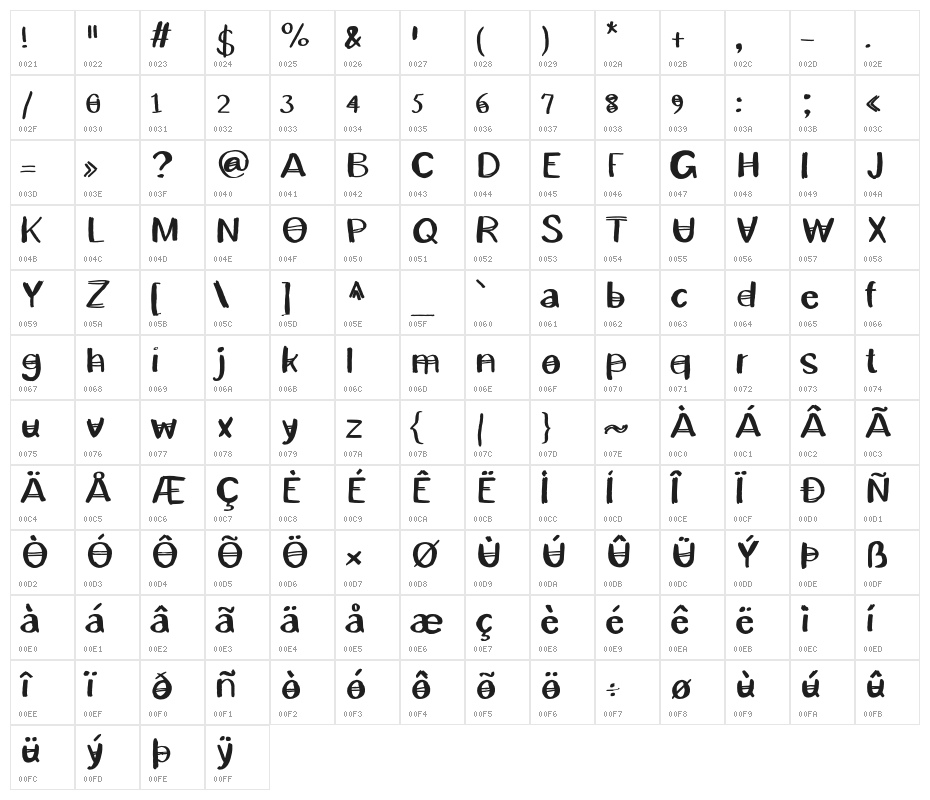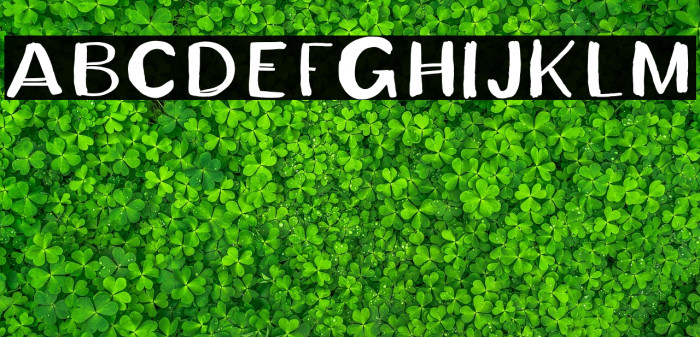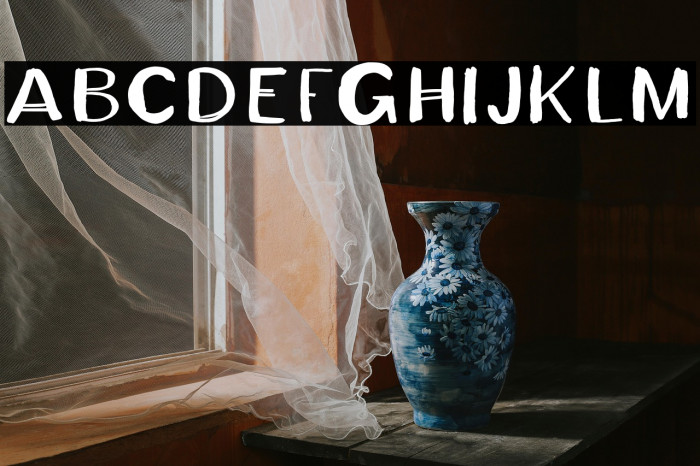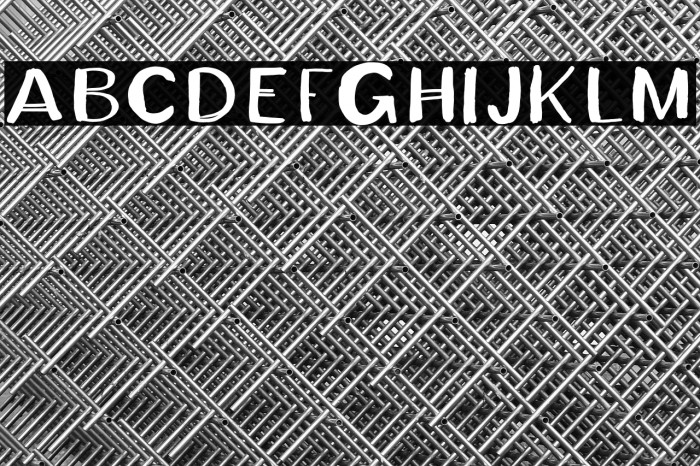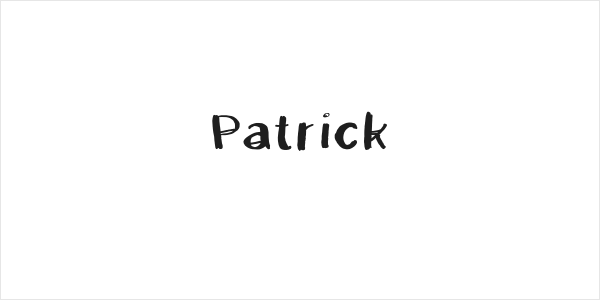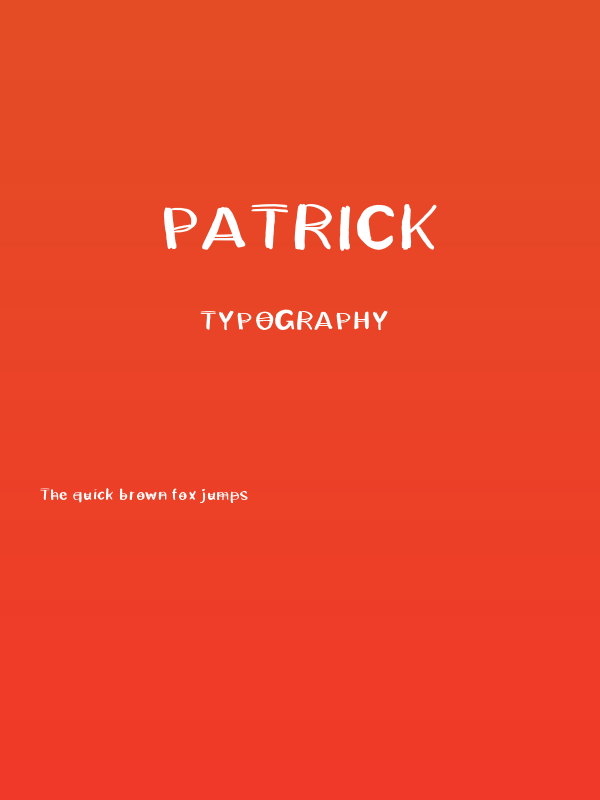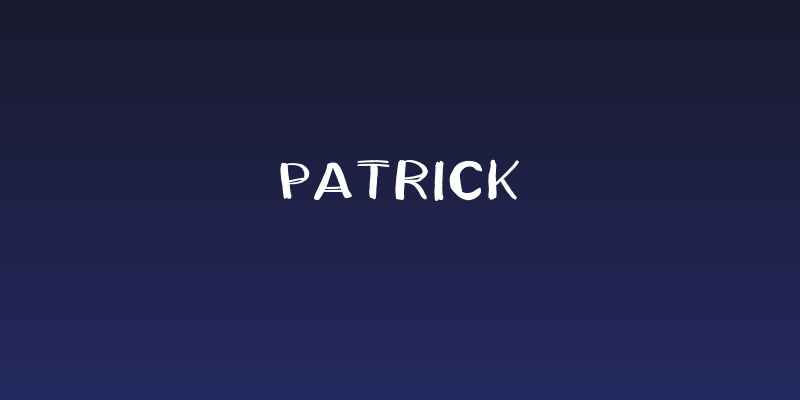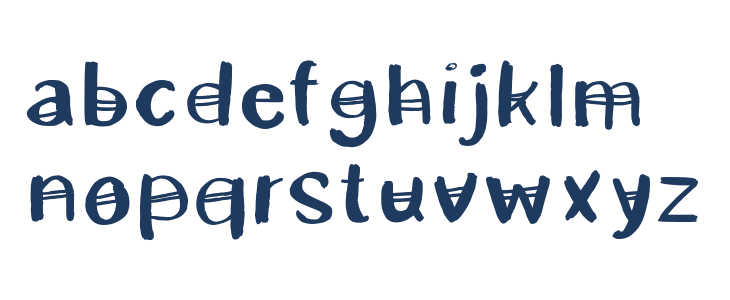
Patrick Font
Patrick Description
This font features a playful and dynamic handwritten style, characterized by its bold and expressive strokes. The letters have an organic, slightly irregular form that adds a sense of movement and personality. The uppercase and lowercase letters maintain a consistent style, with rounded edges and varying stroke widths that create a lively and informal appearance. The numerals and special characters follow the same aesthetic, ensuring a cohesive look across all text elements. This font's unique charm makes it suitable for projects that require a personal touch or a creative flair.
| Overall Style | Playful, Creative |
| Proposed Projects | Ideal for greeting cards, invitations, children's books, and creative branding projects. |